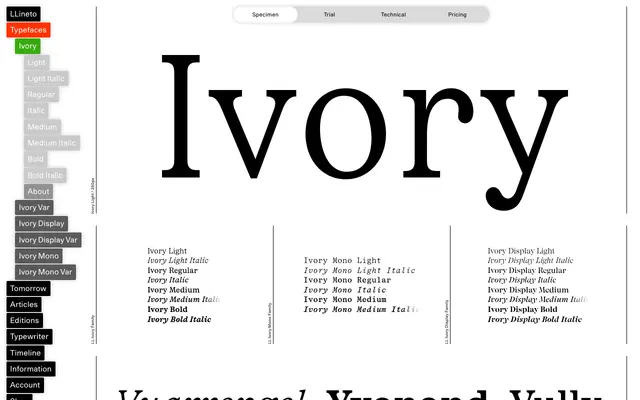
LL Ivory
Lineto · Aurèle Sack · 2016
A geometric-grid serif by Aurèle Sack, rooted in 19th-century American wood type and refined across text, display and mono subfamilies for editorial and identity use.
Developed initially as a custom titling face for Vogue Hommes Paris in 2016, LL Ivory extended into a full family through an unusual reverse process: the text proportions were derived first, then the display cuts opened outward. Sack's strict grid methodology keeps the letterforms surgically precise despite their expressive, extended proportions, with contrast reduced from the historical sources to give the text cuts grip at small sizes. The three monospaced cuts add a functional dimension unusual in a serif family of this character.
LL Ivory derives from 19th-century American wood type and poster fonts, reinterpreted with reduced contrast, pronounced serifs and strict geometric construction. The family spans display, text and mono subfamilies, with the display cuts retaining the extended proportions and expressive character of the historical sources.